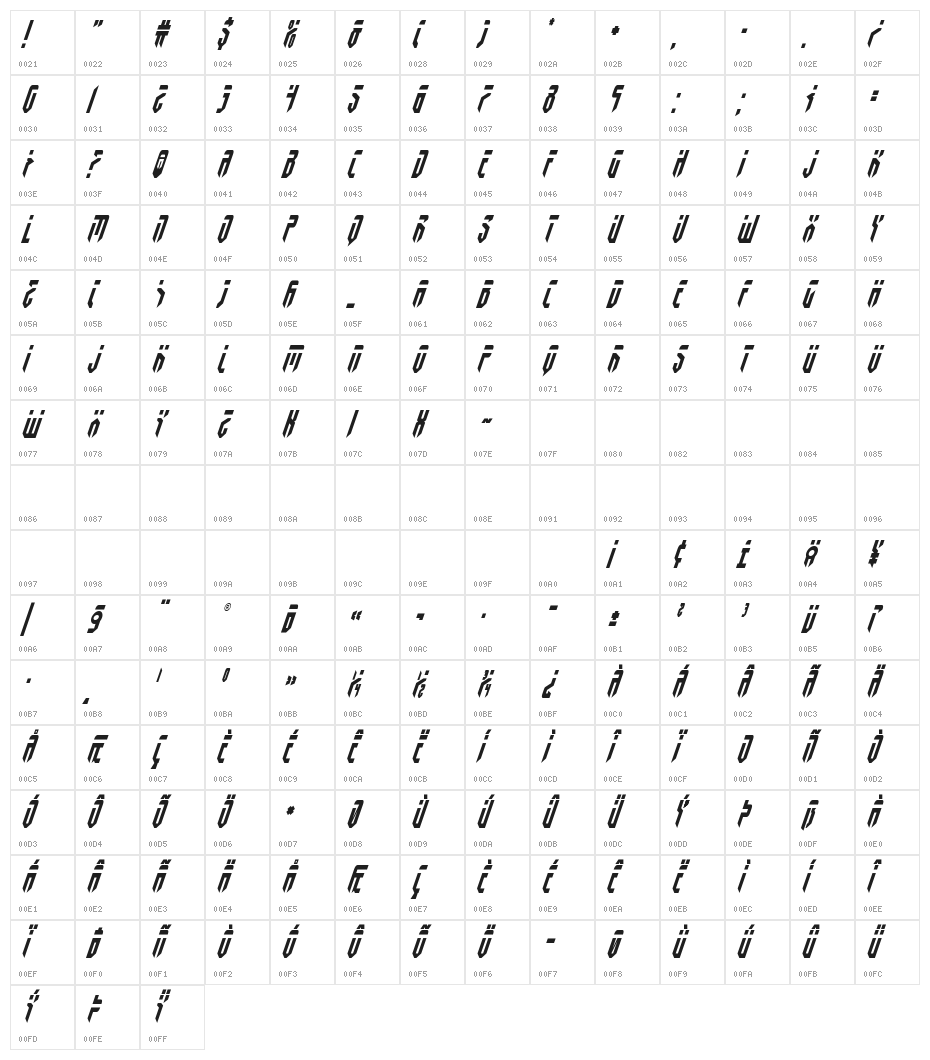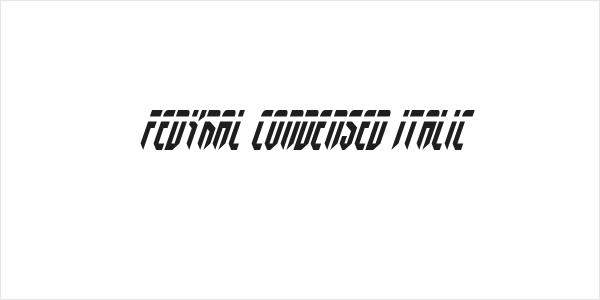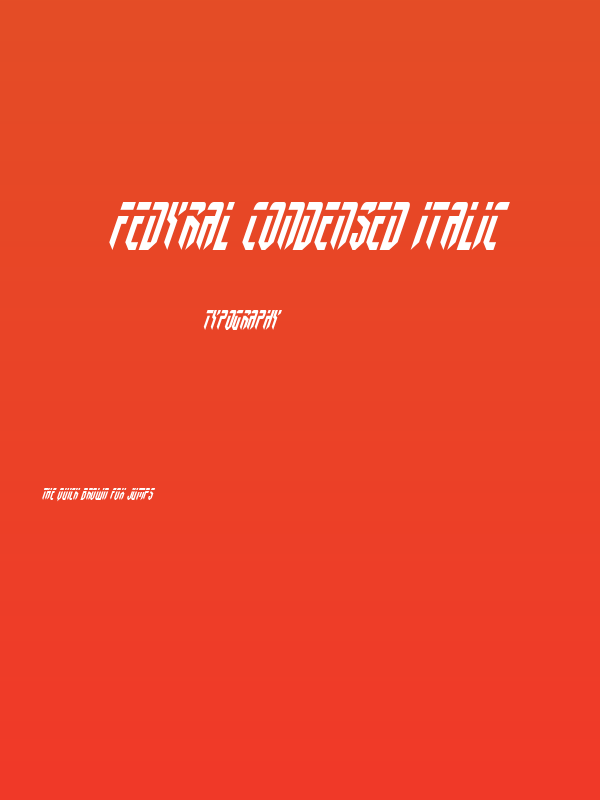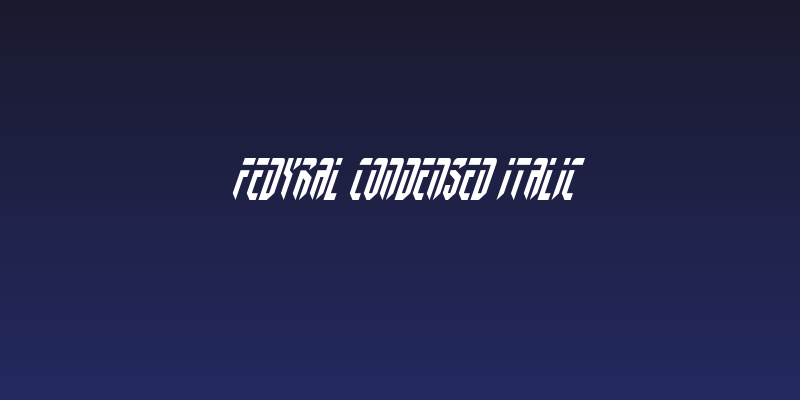
Fedyral Condensed Italic Font
Fedyral Condensed Italic Description
This font features a bold and dynamic design with a distinctly modern and futuristic aesthetic. The characters are sharply angled and condensed, giving them a sleek and streamlined appearance. The italic style adds a sense of movement and energy, making it ideal for projects that require a strong visual impact. The uppercase and lowercase letters maintain a consistent style, with a unique geometric flair that sets them apart. Numbers and special characters are designed to match the overall theme, ensuring a cohesive look across all text elements. The font's condensed width allows for efficient use of space, making it suitable for headlines and titles where space is limited.